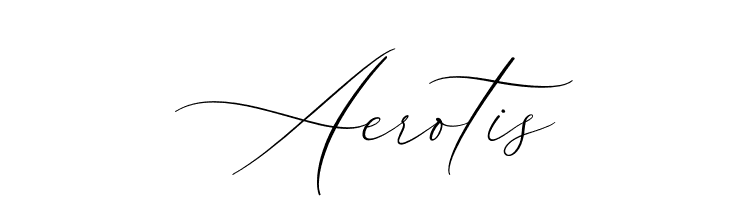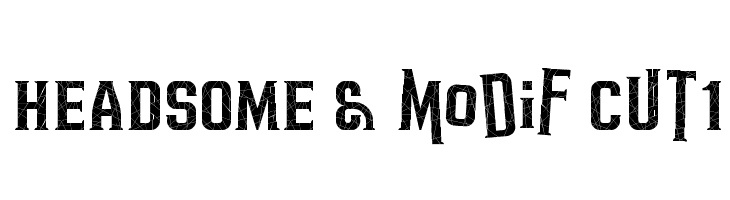
A bold, scribbled font with a chaotic and energetic style.
A bold, distressed font with a vintage, stamp-like texture.
A bold, expressive script font with playful, interconnected characters.
A lively and expressive script font with flowing, cursive letterforms.
Cartoonish, artist-themed pictorial font with each character as a unique illustration.
A minimalist set of line-based icons with a modern and clean design.
A bold, futuristic font with a 3D outlined design and geometric shapes.
A decorative font with whimsical bird illustrations replacing letters and numbers.
An elegant and sophisticated cursive script font with flowing curves and dynamic strokes.
A bold, playful font with heart-shaped embellishments on each character.
A bold, decorative font with intricate geometric patterns and strong outlines.
A modern, elegant script font with flowing, cursive characters.
A bold, 3D font with a modern, playful aesthetic and distinct shadow effects.
A bold, futuristic font with wide, geometric characters.
A bold, condensed font with a geometric and modern style.
A playful, bubble-like font with bold, rounded outlines.
Ornamental icon set with East Asian-inspired geometric and floral motifs.
A playful, hand-drawn font with tall, narrow characters and a whimsical style.
Playful handwritten font with a whimsical style.
A playful, decorative font with flower motifs at the center of each character.
A tall, slender serif font with elegant, elongated characters.
A bold, italic, futuristic font with geometric shapes and a double-layered outline.
A segmented, digital-style font with a futuristic aesthetic.
A playful, bold font with rounded, bubbly characters.
A decorative, nature-inspired italic font with a leaf-like pattern.
A bold, distressed stencil font with an industrial, rugged appearance.
A bold, geometric font with uniform thickness and a modern, industrial style.
设计师偏爱 Emperador Oscuro, Arnel Vintage Demo Stamp, yello, Betharia and Citra,因为其造型干净、适用范围广—— 从品牌识别到落地页、海报都能胜任。